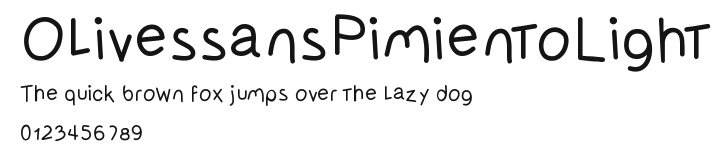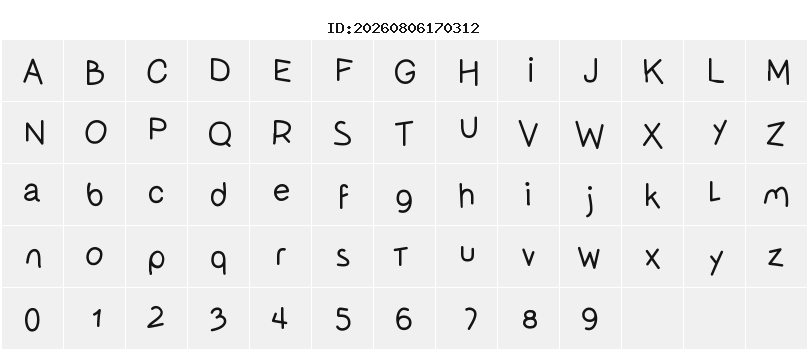
About OlivessansPimientoLight.ttf
OlivessansPimientoLight.ttf is a modern, elegant sans-serif font designed for ultimate readability and visual harmony. Perfect for branding, headlines, web design, and print materials.